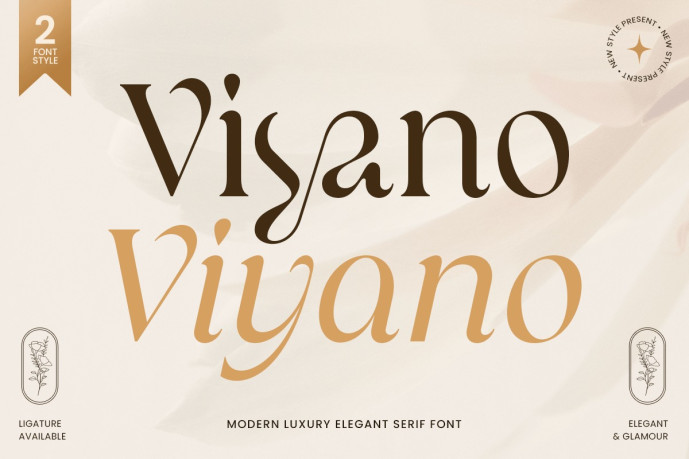
Viyano Font
Designer: HamzStudio
Viyano Font is a modern, luxurious, and elegant serif typeface designed to bring sophistication, beauty, and exclusivity to every design. With its refined serif details, graceful proportions, and timeless visual character, this typeface is ideal for luxury brands, fashion campaigns, editorial layouts, and packaging.
Designed for brands that value elegance and distinction, Viyano combines contemporary aesthetics with classic refinement. Its elegant letterforms create a sophisticated visual presence that works perfectly on logos, invitations, magazines, beauty brands, and premium product identities.Whether you are designing for fashion brands, luxury boutiques, lifestyle products or creative editorials, Viyano offers clarity, prestige and a memorable high-end look in print and digital applications.